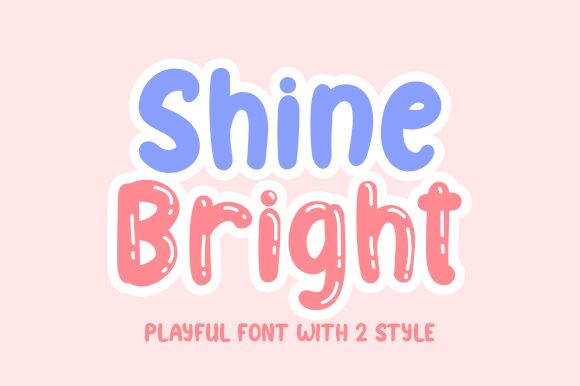
Looking for a playful display font that adds a touch of whimsy to any project? Look no further than Shine Bright, designed by Risma Ramawi. This semi-bold font is perfect for a variety of projects, from children's books to party invitations to social media graphics. Its unique curves and angles give it a distinct personality that will make your text stand out. Use Shine Bright to add some fun and creativity to your next design project - whether it's a flyer for an upcoming event or an eye-catching logo for your business. Let your text shine with Shine Bright!
Shine Bright
Risma Ramawi